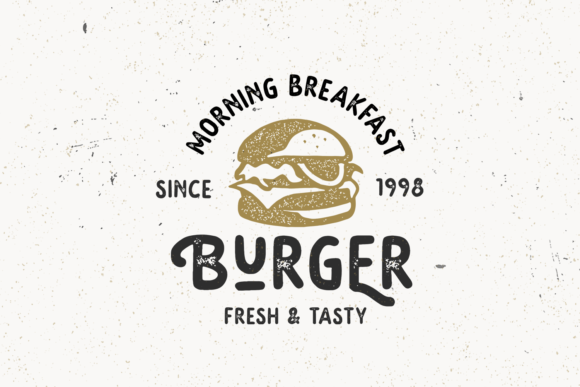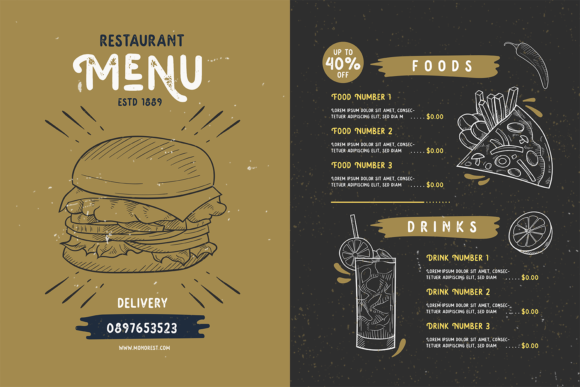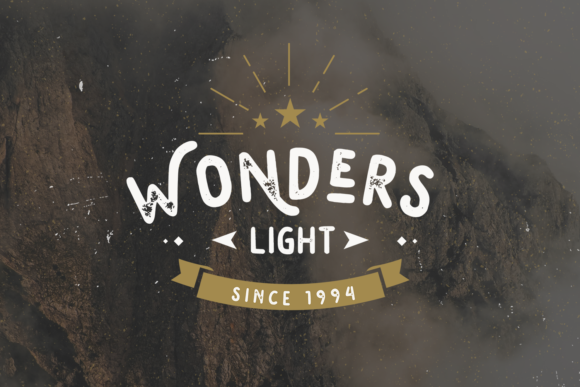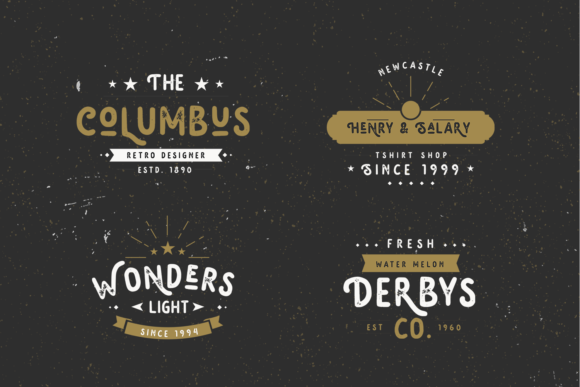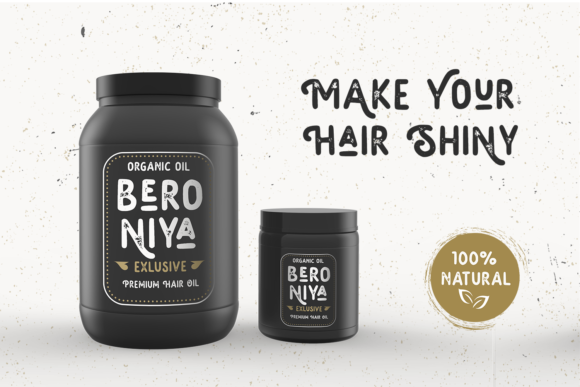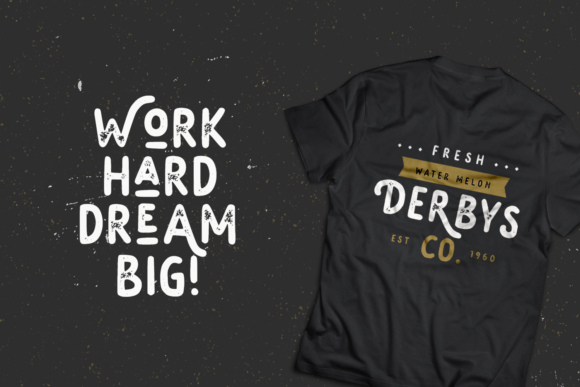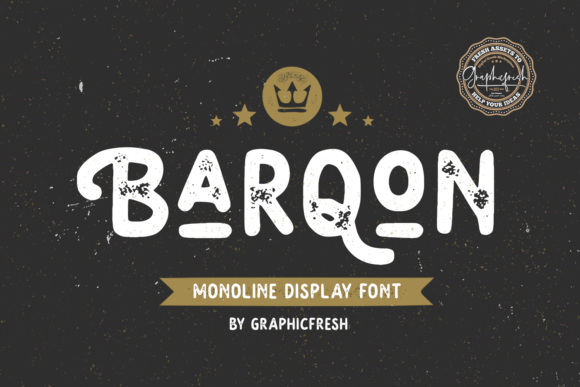
Introducing Barqon Font: A Vintage Display Font for Creative Projects
Are you a designer or crafter looking for a unique and stylish font to elevate your creative projects? Look no further than Barqon Font, a vintage display font that is perfect for a variety of applications. In this article, we’ll take a closer look at Barqon Font, its features, and how you can use it to add a touch of elegance and sophistication to your designs.
What is Barqon Font?
Barqon Font is a vintage display font that is inspired by classic typography. It comes in two versions: regular and stamp. The regular version features elegant and refined lettering, while the stamp version has a more distressed and vintage look. This font is perfect for designers and crafters who want to add a touch of nostalgia and charm to their projects.
Key Features of Barqon Font
- Vintage-inspired design: Barqon Font features a classic and timeless design that is reminiscent of vintage typography.
- Two font versions: The font comes in two versions: regular and stamp. The regular version is perfect for formal designs, while the stamp version adds a touch of distress and character.
- High-quality design: Barqon Font is designed with high-quality craftsmanship in mind. The lettering is elegant, refined, and perfect for a variety of applications.
Uses for Barqon Font
Barqon Font is a versatile font that can be used for a variety of creative projects. Here are some ideas to get you started:
- Logos: Use Barqon Font to create a unique and memorable logo for your business or brand.
- Magazines and newspapers: Add a touch of elegance and sophistication to your magazine or newspaper with Barqon Font.
- Invitations: Use Barqon Font to create beautiful and stylish invitations for weddings, parties, and other special events.
- Headers and titles: Add a touch of vintage charm to your website, blog, or social media graphics with Barqon Font.
- Large-scale artwork: Use Barqon Font to create stunning large-scale artwork, such as posters, billboards, and murals.
Tips for Using Barqon Font
Here are some tips for using Barqon Font in your creative projects:
- Experiment with different sizes: Barqon Font looks great in a variety of sizes, from small captions to large headlines.
- Pair with other fonts: Try pairing Barqon Font with other fonts to create a unique and interesting contrast.
- Use the stamp version for added texture: The stamp version of Barqon Font adds a touch of distress and texture to your designs.
- Pay attention to kerning: Make sure to adjust the kerning of Barqon Font to ensure that it looks great in your design.
Barqon Font is a versatile and stylish vintage display font that is perfect for a variety of creative projects. With its elegant and refined lettering, Barqon Font is sure to add a touch of sophistication and elegance to your designs. Whether you’re a designer or crafter, Barqon Font is a great addition to your font library.